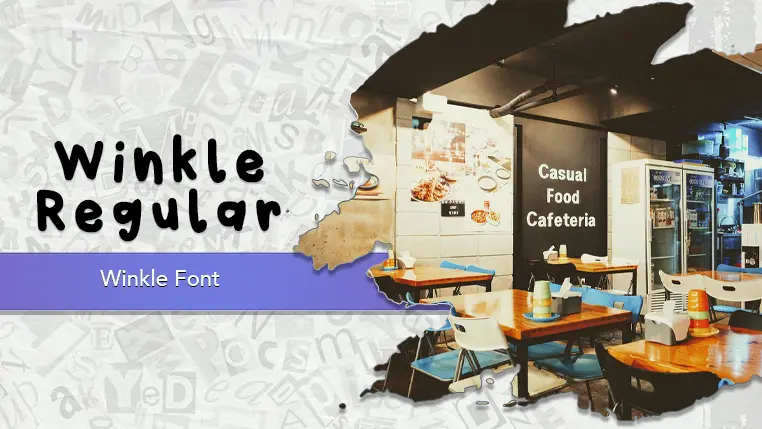
The Winkle font family may be ideal for you if you enjoy working on an artistic design project. The lively, expressive look of this typeface, which was created by createsha, makes it ideal for Personal Branding, Social Media Graphics, Greeting Cards & Invitations, Children's Books & Materials, Bullet Journals & Digital Scrapbooking, Cafes, Bakeries, or Boutiques and Recipe Cards/Cookbooks and other light-hearted visual projects.
Regular are the one primary font styles of the Winkle font family. You may build dynamic, visually appealing text layouts with the distinct flair that each style offers. With crisp, readable lines and a relaxed tone.